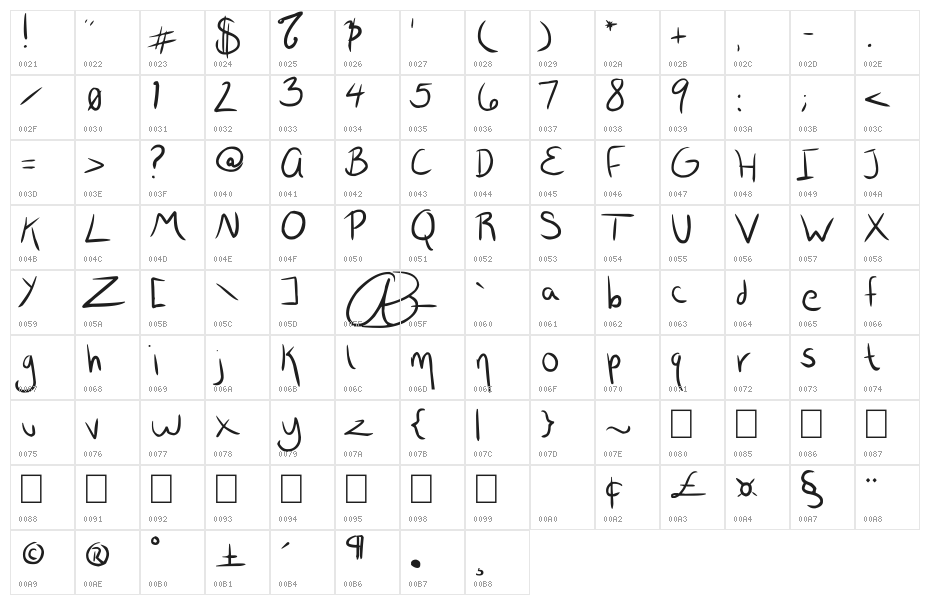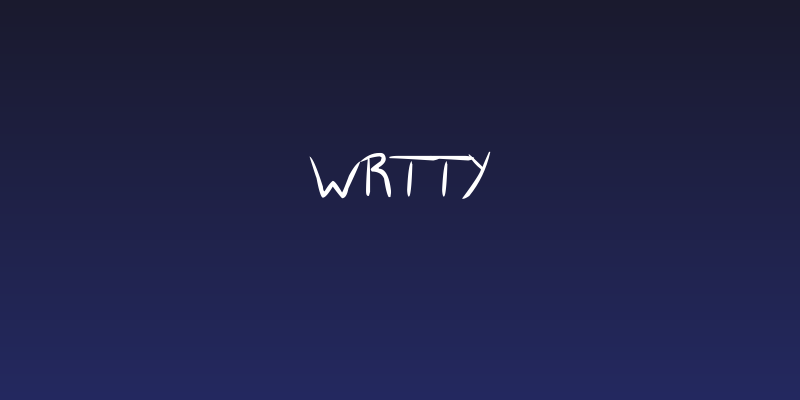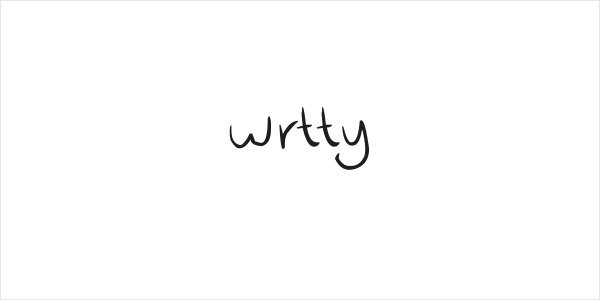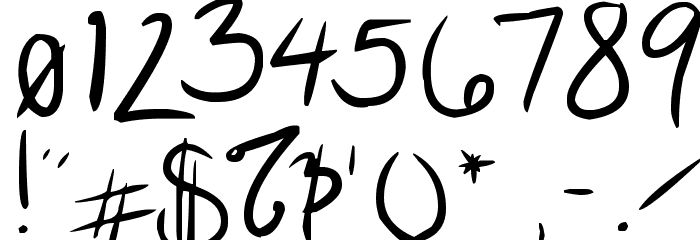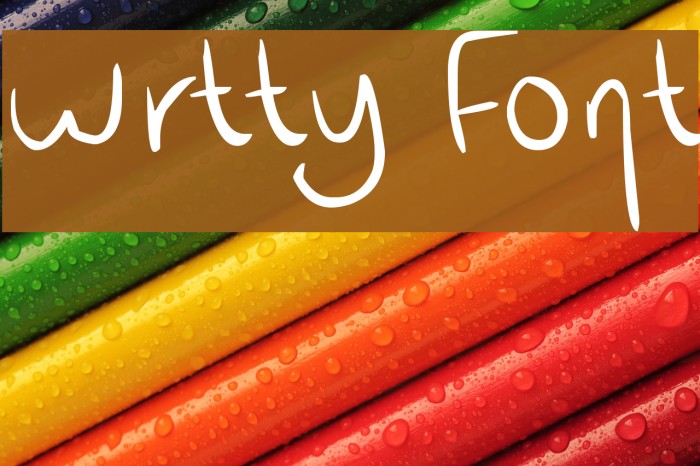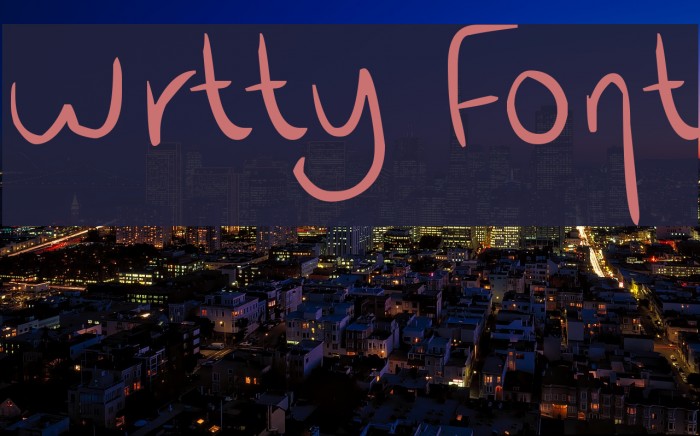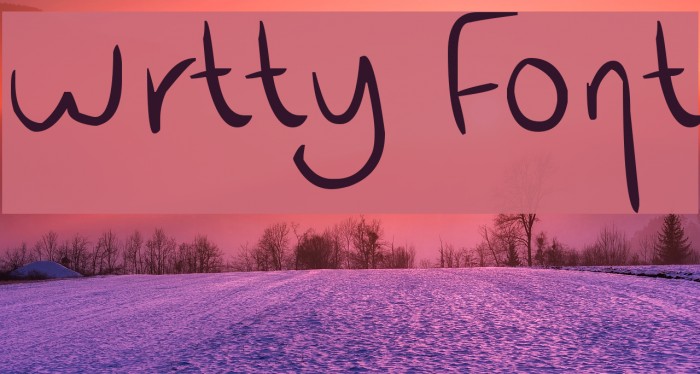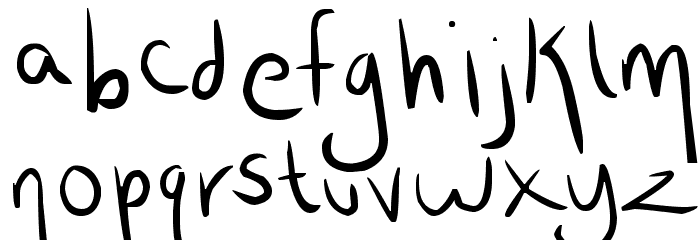
wrtty Font
wrtty Description
This font features a playful and dynamic handwritten style, characterized by its fluid and slightly irregular strokes. The letters have a casual, informal appearance, with varying heights and angles that give it a lively and spontaneous feel. The uppercase letters are bold and prominent, while the lowercase letters maintain a consistent flow with a touch of whimsy. The numerals are distinct and easy to read, complementing the overall aesthetic. Special characters are creatively integrated, adding to the font's versatility and charm.
| Overall Style | Playful |
| Use Case | Headlines, Logos, Informal text |
| Proposed Projects | Ideal for greeting cards, playful branding, children's books, and creative posters. |